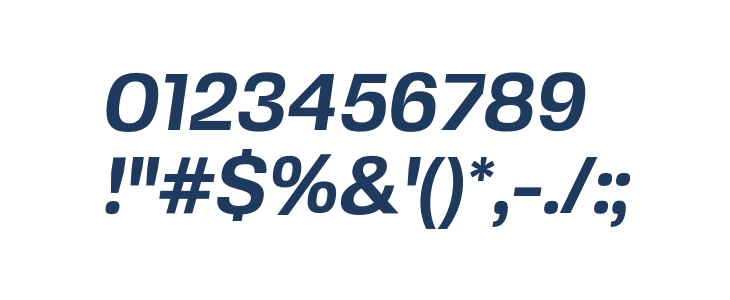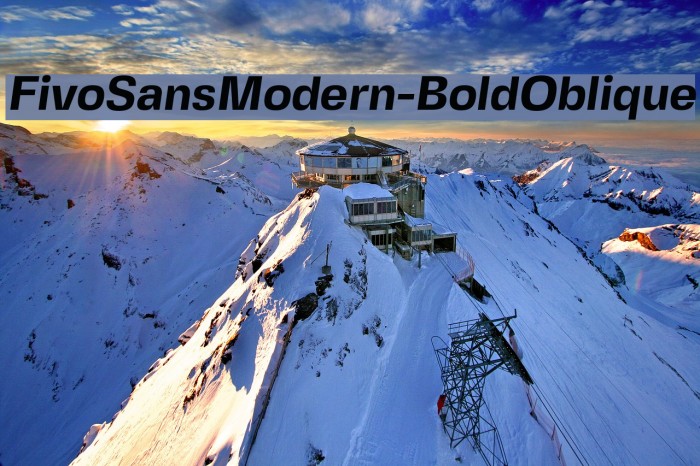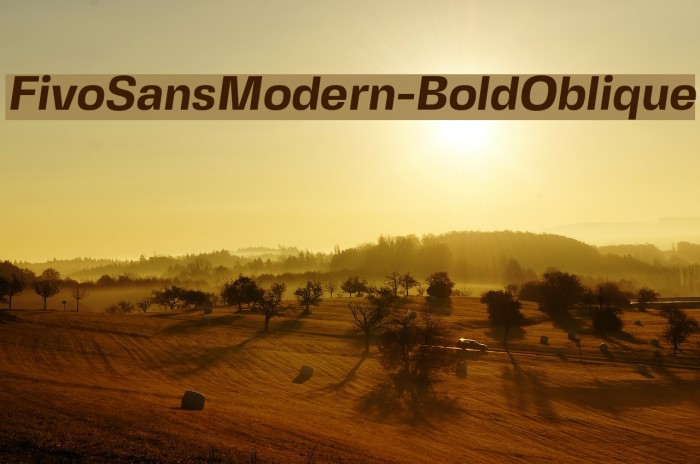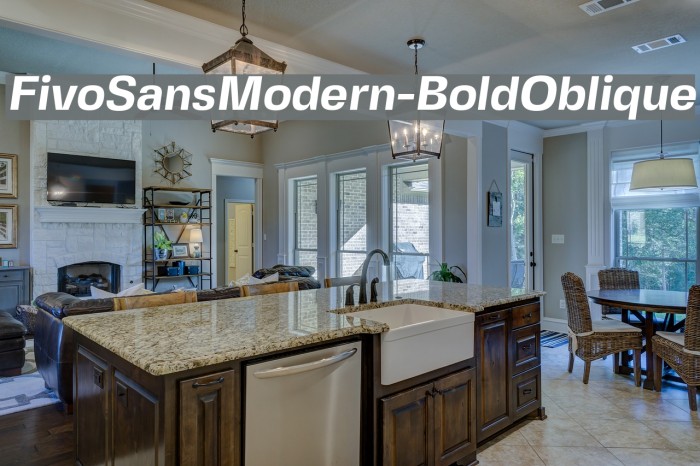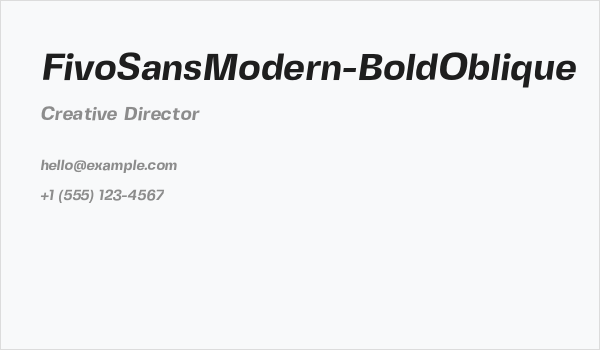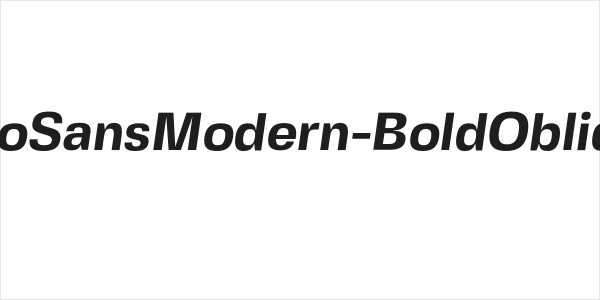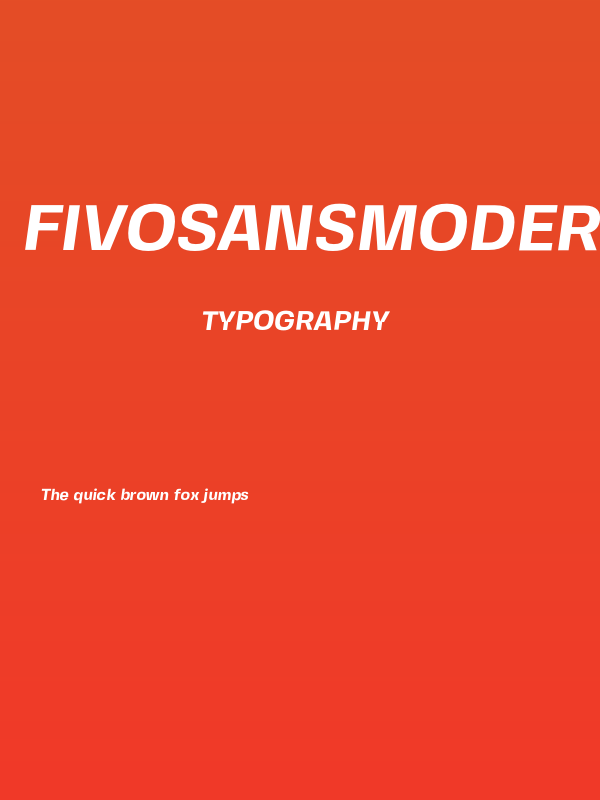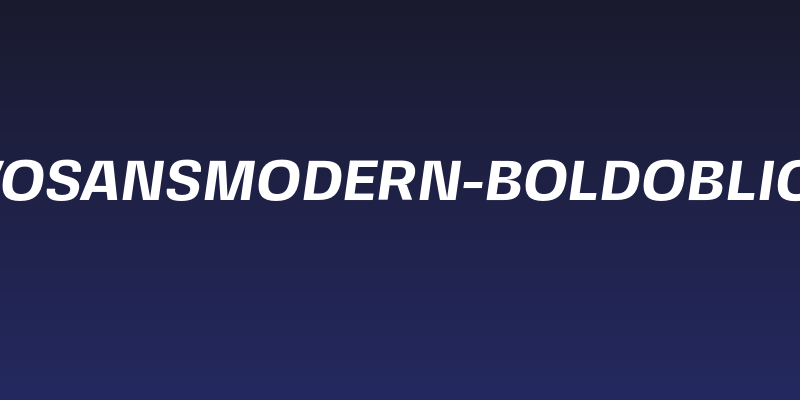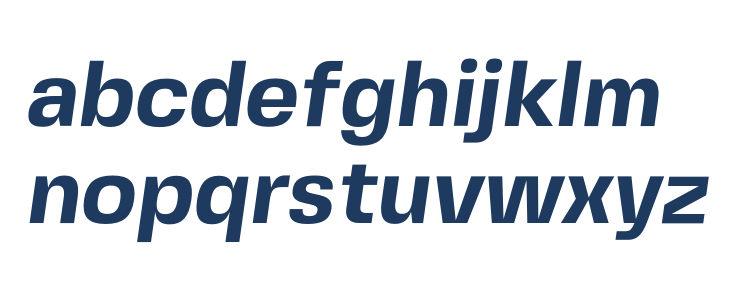
FivoSansModern-BoldOblique Font
FivoSansModern-BoldOblique Description
This font exhibits a modern and sleek design with a bold and oblique style. The characters are sans-serif, featuring clean lines and a slightly forward-leaning posture that adds a dynamic feel. The uppercase and lowercase letters maintain a consistent weight, ensuring readability and impact. Numbers and special characters are designed with the same boldness, providing uniformity across all glyphs. The overall appearance is contemporary and professional, making it suitable for various digital and print applications.
| Use Case | Headlines, Logos, Digital Media |
| Proposed Projects | Ideal for branding, advertising, headlines, and digital media where a strong and modern impression is desired. |